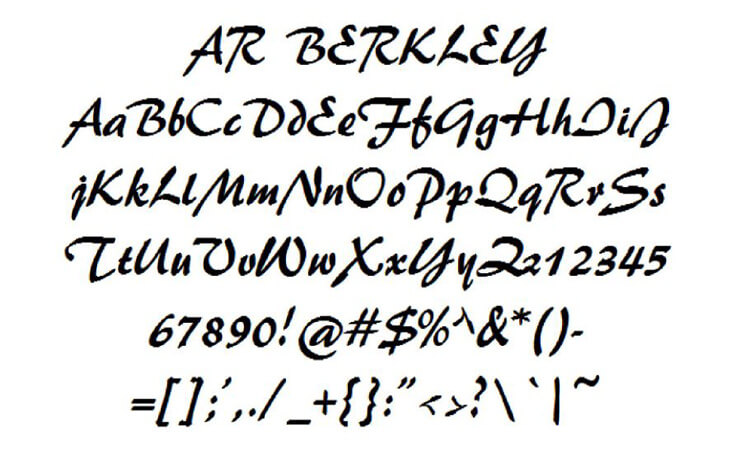
Are you looking for a handmade brush script font family with lots of alternates, and uniqueness? There’s a massive chance you’re going to like AR Berkley Font.
There is no doubt that this fancy font family is a great discovery for the type design industry and various other modern fonts took the AR Berkley font as inspiration.
Style:Script, Brush, Handwritten
This font family has 214 glyphs counted in numbers such as Basic Latin, General Punctuation, Latin-1 Supplements, and a currency symbol.